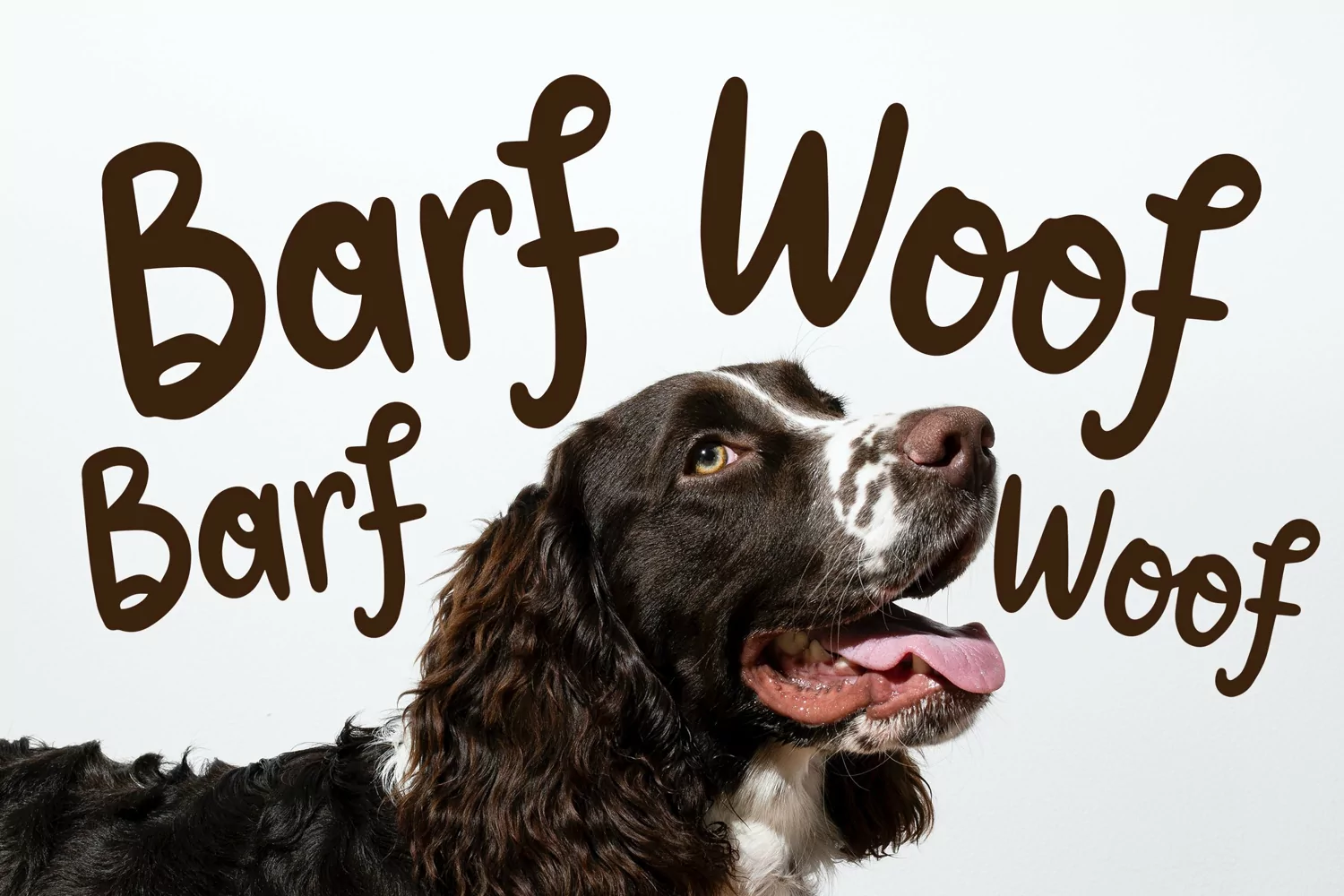
Pignetta - Sweet Handwritten Font that contain lowercase, uppercase, symbol, and also support multi language. There’s a lot ligatures in this font. This Font also comes with ligatures, alternates and many more. this font suitable for fashion, branding, catalog and other design what you want.